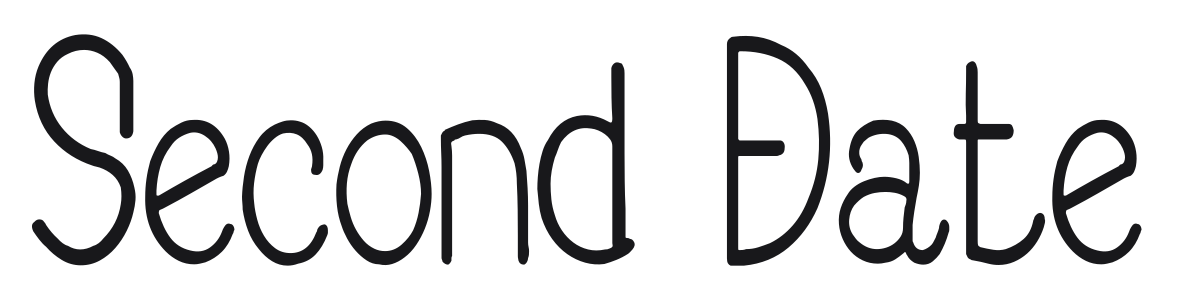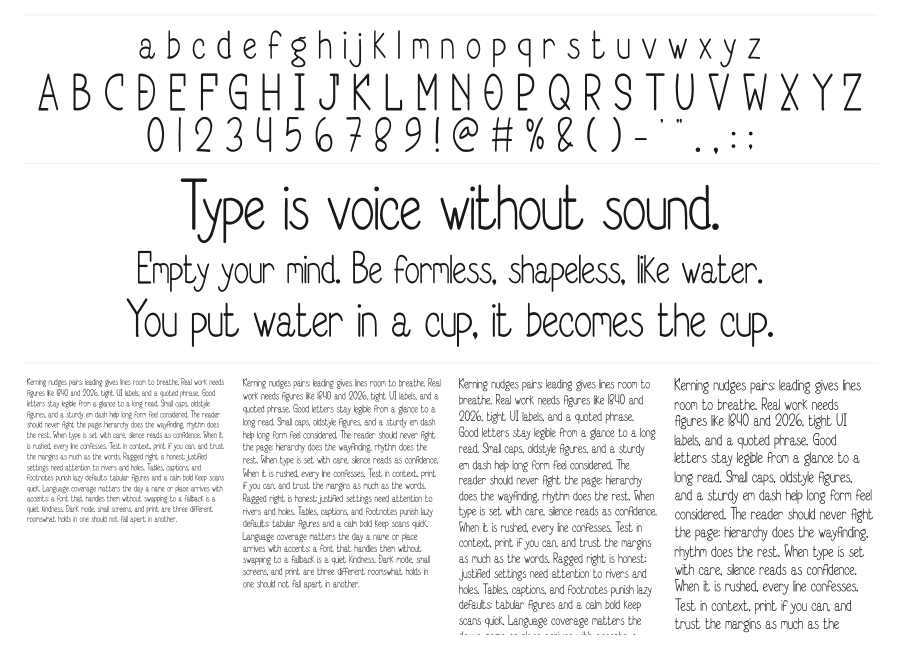
Second Date
Second Date is a rounded, light-weight sans-serif with a playful hand-drawn quality that keeps it feeling personal rather than polished. The soft ball terminals and slightly uneven stroke flow give it warmth without tipping into full script territory. It works well for branding, packaging, and any context that calls for approachable charm.